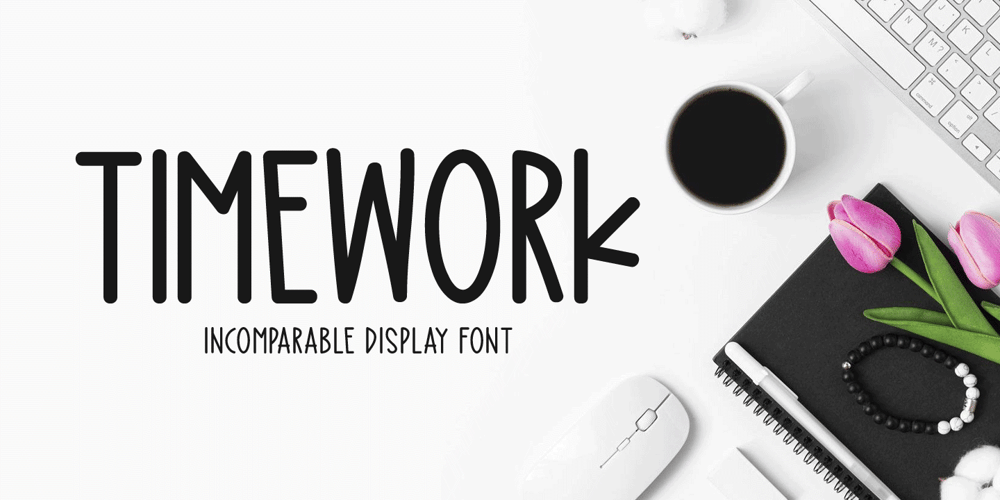
Timework Font Family was designed by Md Shohail Bhuian and published by Seemly Fonts. Timework contains 1 styles and family package options. Timework is a unique display font. This font is a great choice for a wide variety of contexts! It looks stunning on thank you cards, quotes, greeting cards, logos, business cards, and every other design which needs a creative spark.